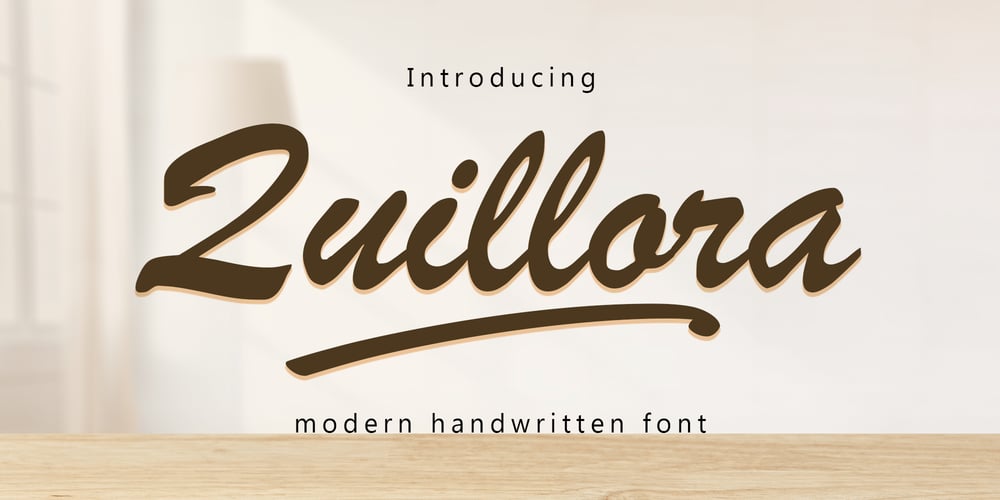
Quillora Script Font Family was designed by Muhammad Rayyan and published by Slex Studio. Quillora Script contains 1 styles and family package options. Quillora is a semi-brush script font that combines a playful yet elegant style with a natural, hand-crafted feel. Characterized by its fluid strokes and slightly textured edges, it strikes a perfect balance between modern and casual, making it versatile for a wide range of creative projects. The font features smooth, flowing curves and brush-inspired elements that give it an organic, artistic charm. Quillora’s semi-brush design allows for both legibility and expressive personality, making it ideal for use in branding, invitations, posters, and other designs that need a touch of handmade elegance with a modern twist.